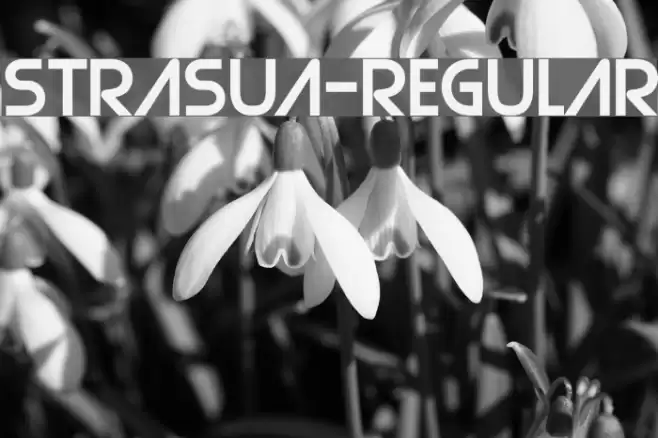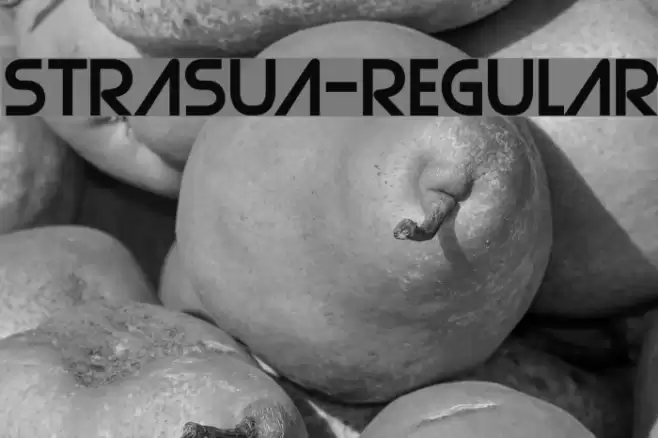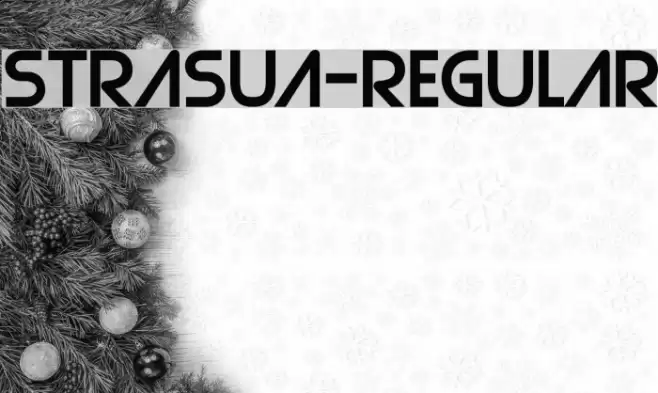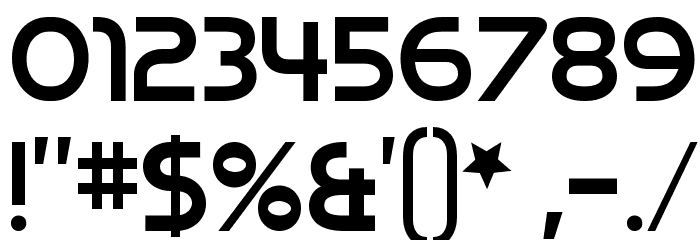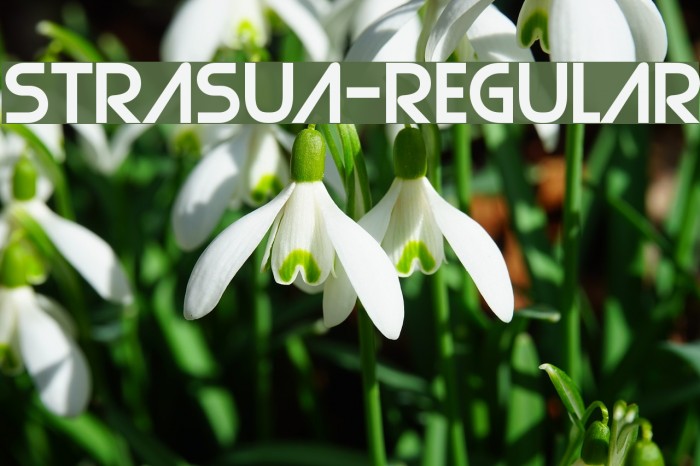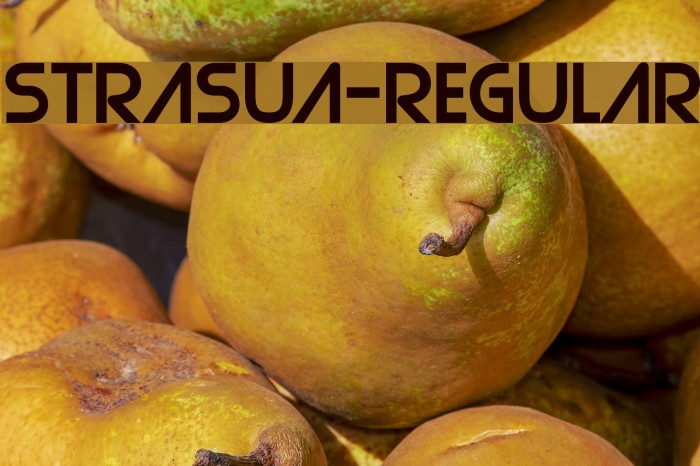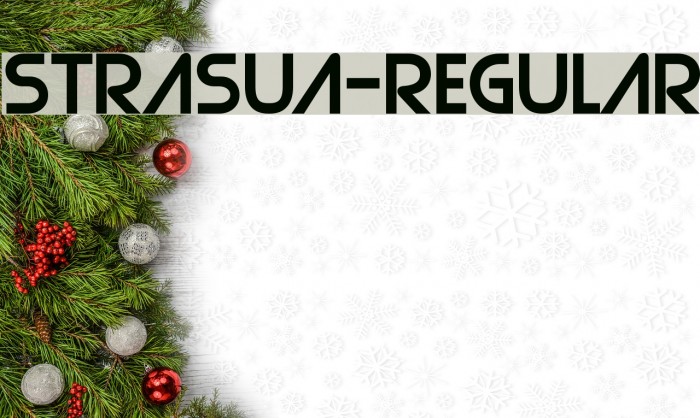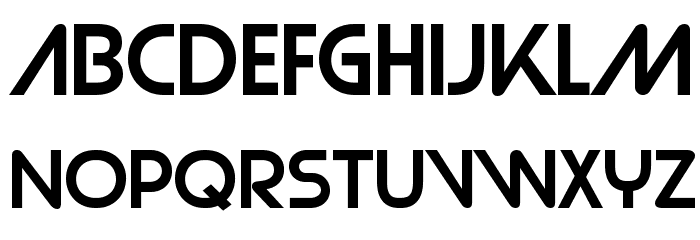
Strasua-Regular Font
Strasua-Regular Description
This font features a bold and geometric design with sharp angles and clean lines, creating a modern and futuristic appearance. The uppercase letters are distinct with a unique slant, particularly noticeable in characters like 'A', 'V', and 'W'. The numerals are equally bold, maintaining the geometric style with consistent stroke widths. Special characters are well-integrated, complementing the overall aesthetic. This font's strong visual impact makes it ideal for attention-grabbing designs.
A bold, geometric font with sharp angles and a modern aesthetic from Uncategorized fonts.
- Proposed Projects: Ideal for branding, posters, headlines, and any project requiring a modern and striking typeface.